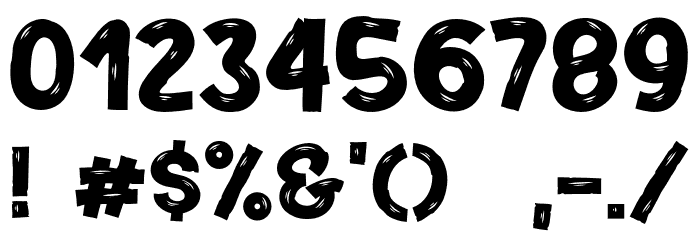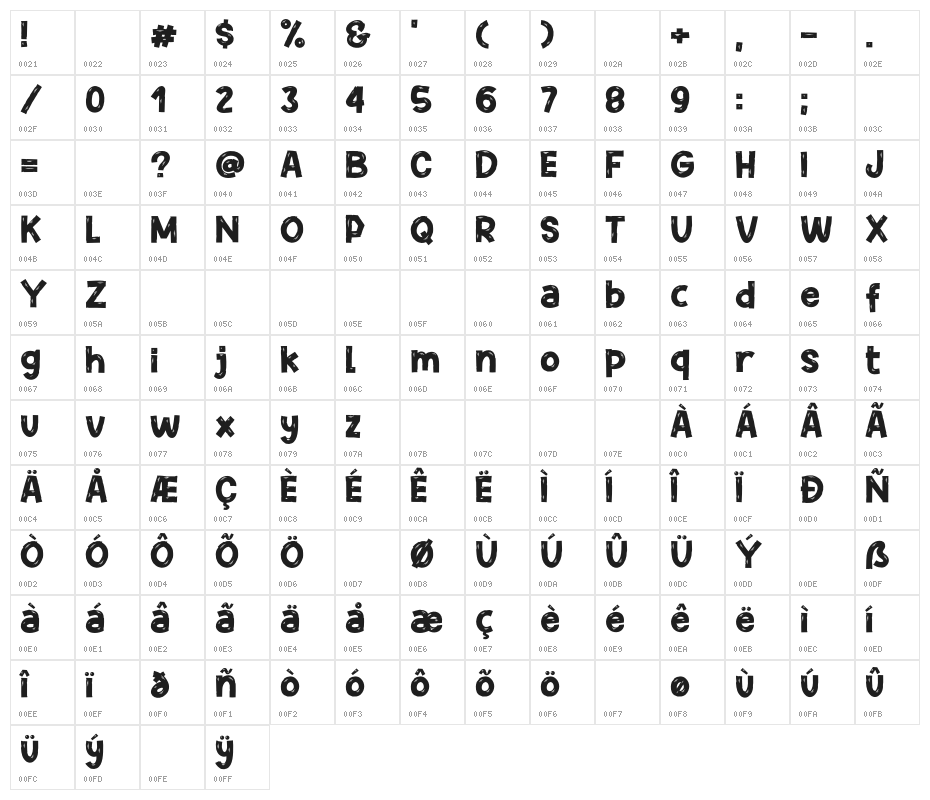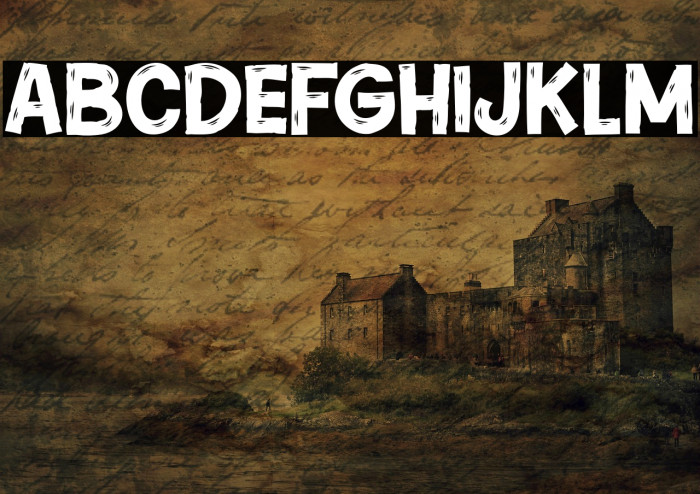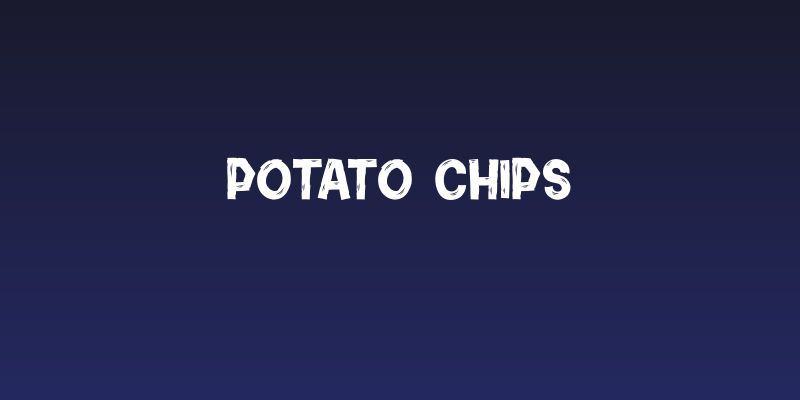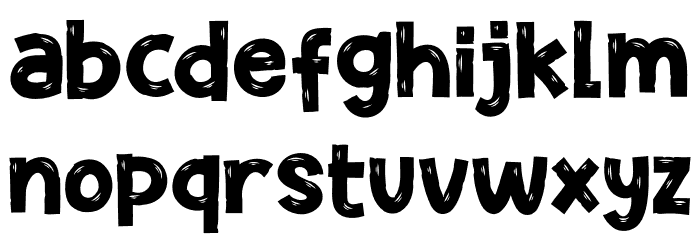
Potato Chips Font
Potato Chips Description
This font features a bold, playful style with a hand-drawn appearance. The characters are thick and uneven, giving a casual and artistic vibe. The strokes are irregular, with a brush-like texture that adds a dynamic and energetic feel. The uppercase and lowercase letters maintain a consistent style, while the numbers and special characters complement the overall design. This font is ideal for projects that require a fun and informal touch, such as children's books, posters, or creative branding.
| Overall Style | Playful, Artistic |
| Proposed Projects | Ideal for children's books, posters, creative branding, and playful designs. |